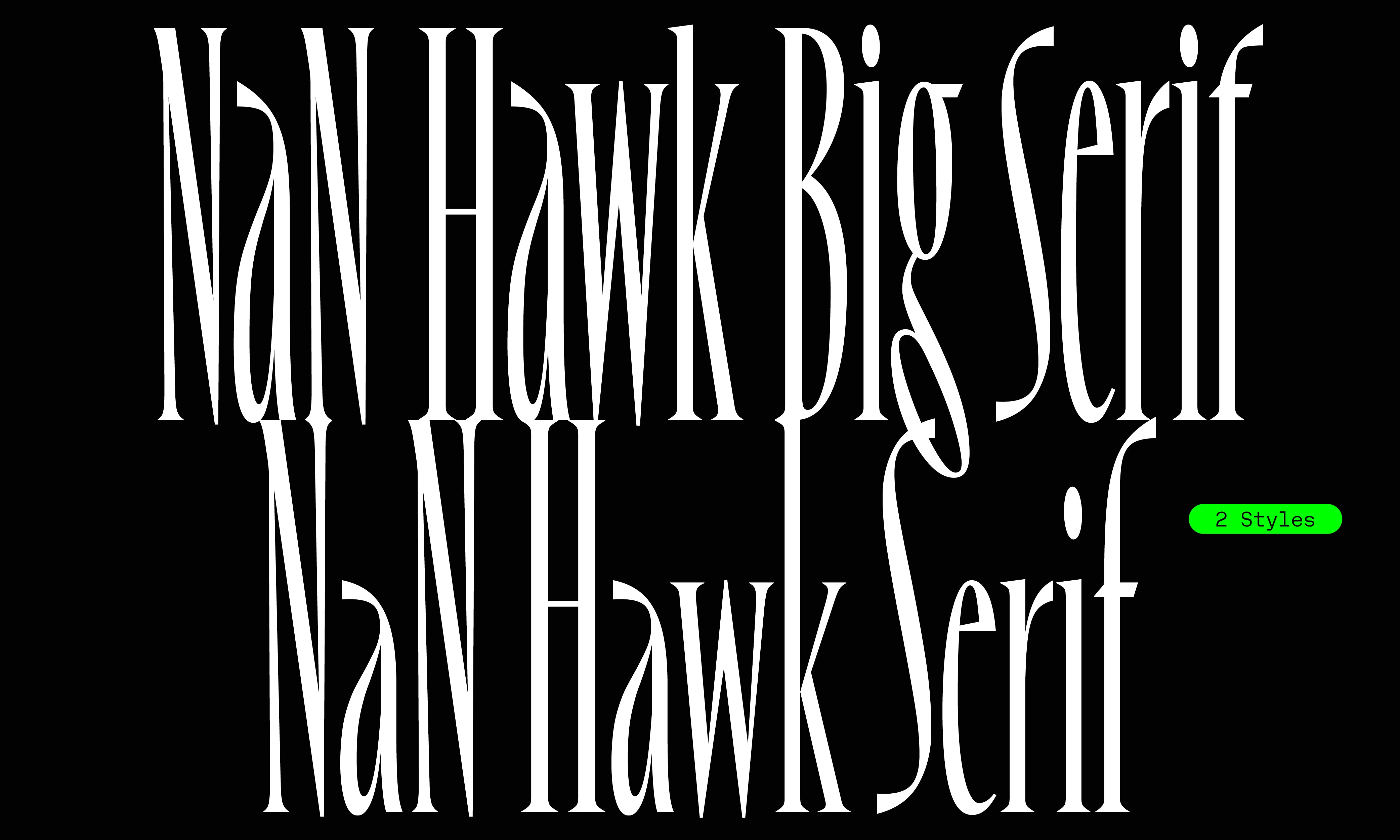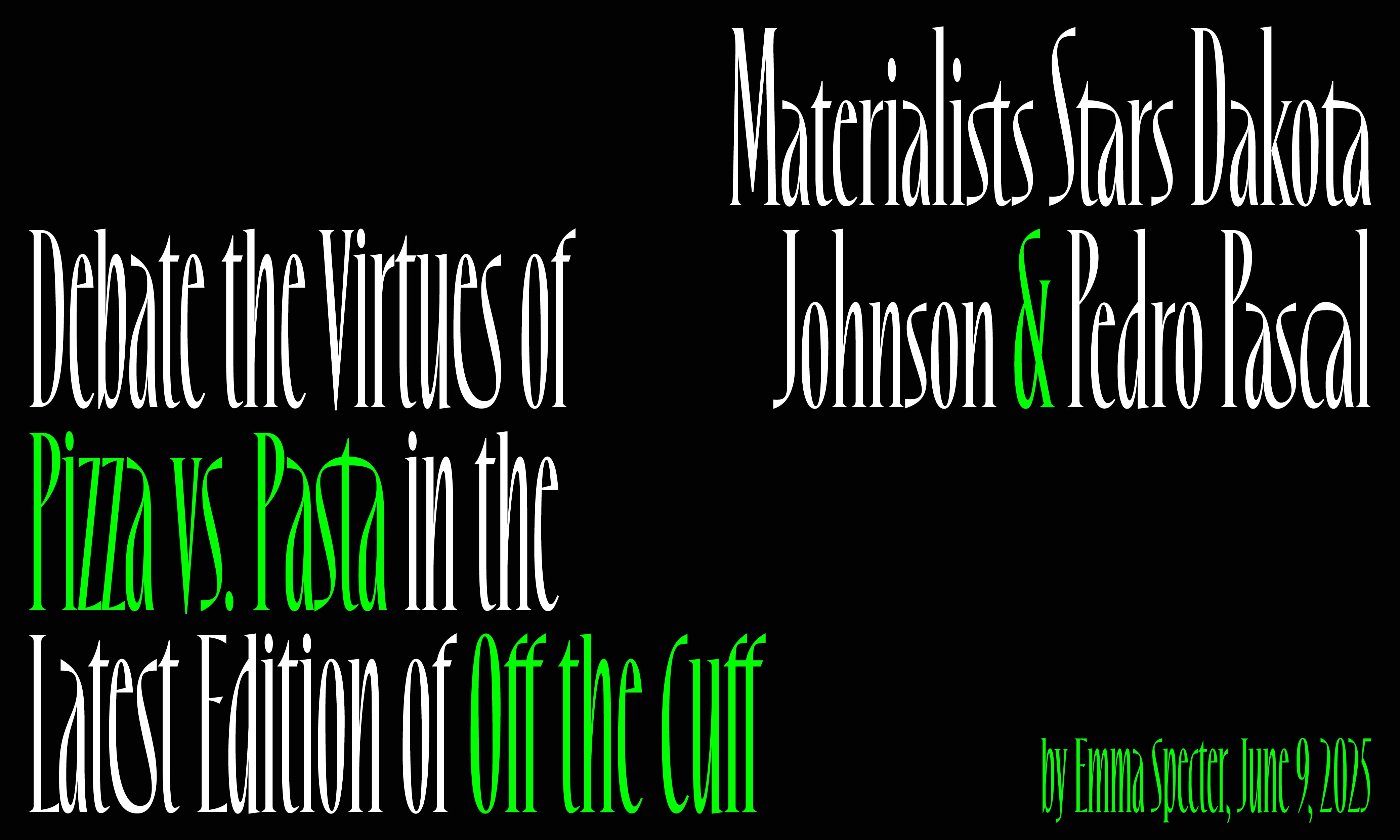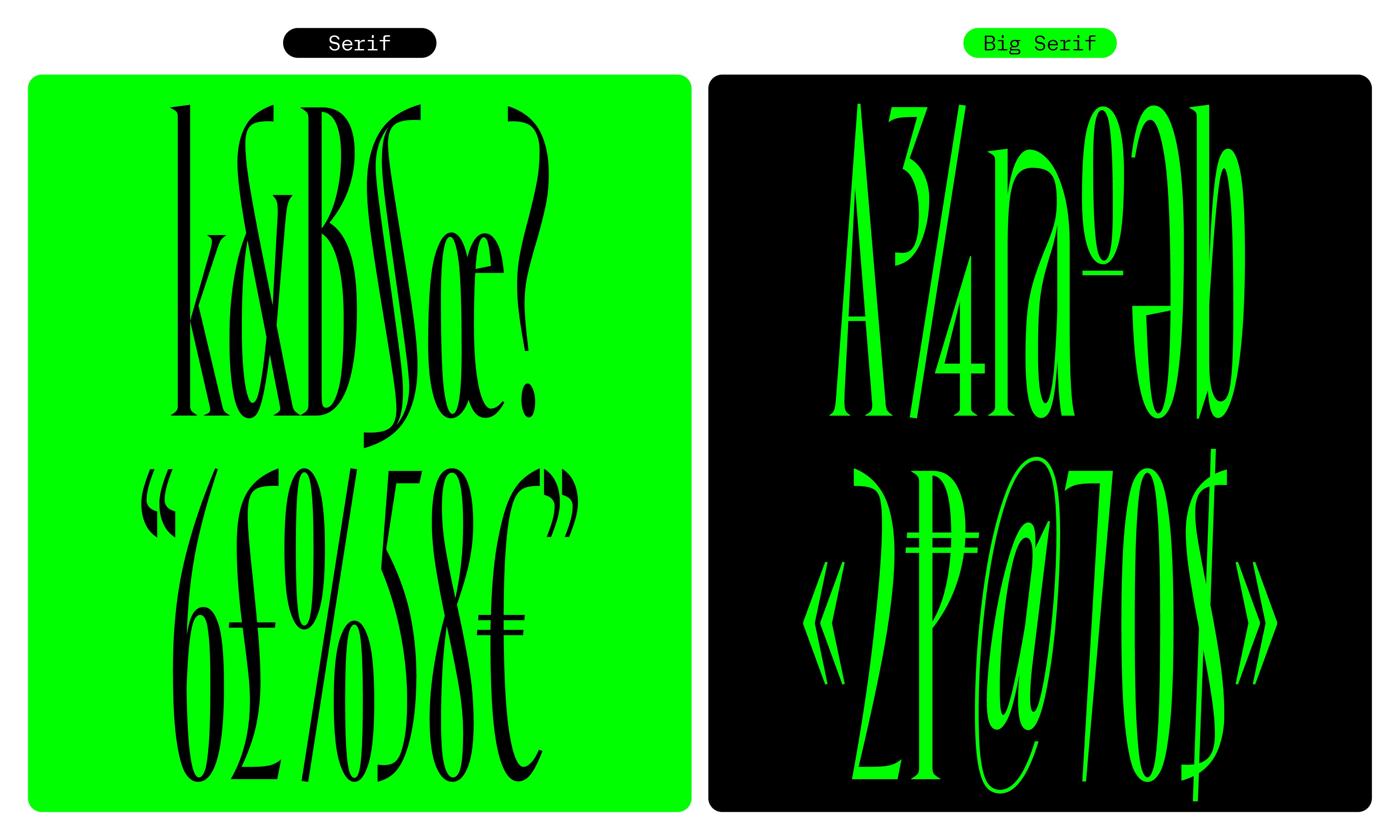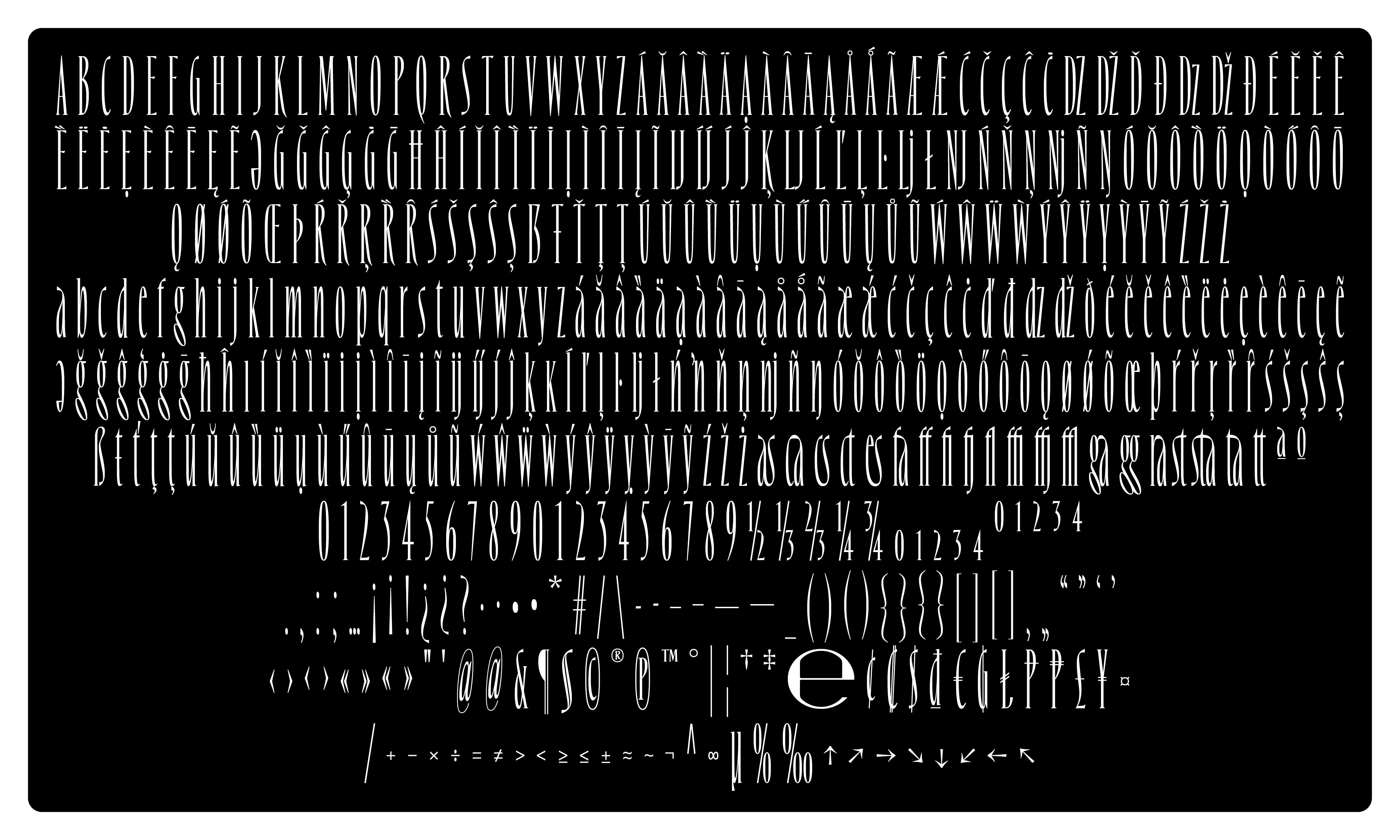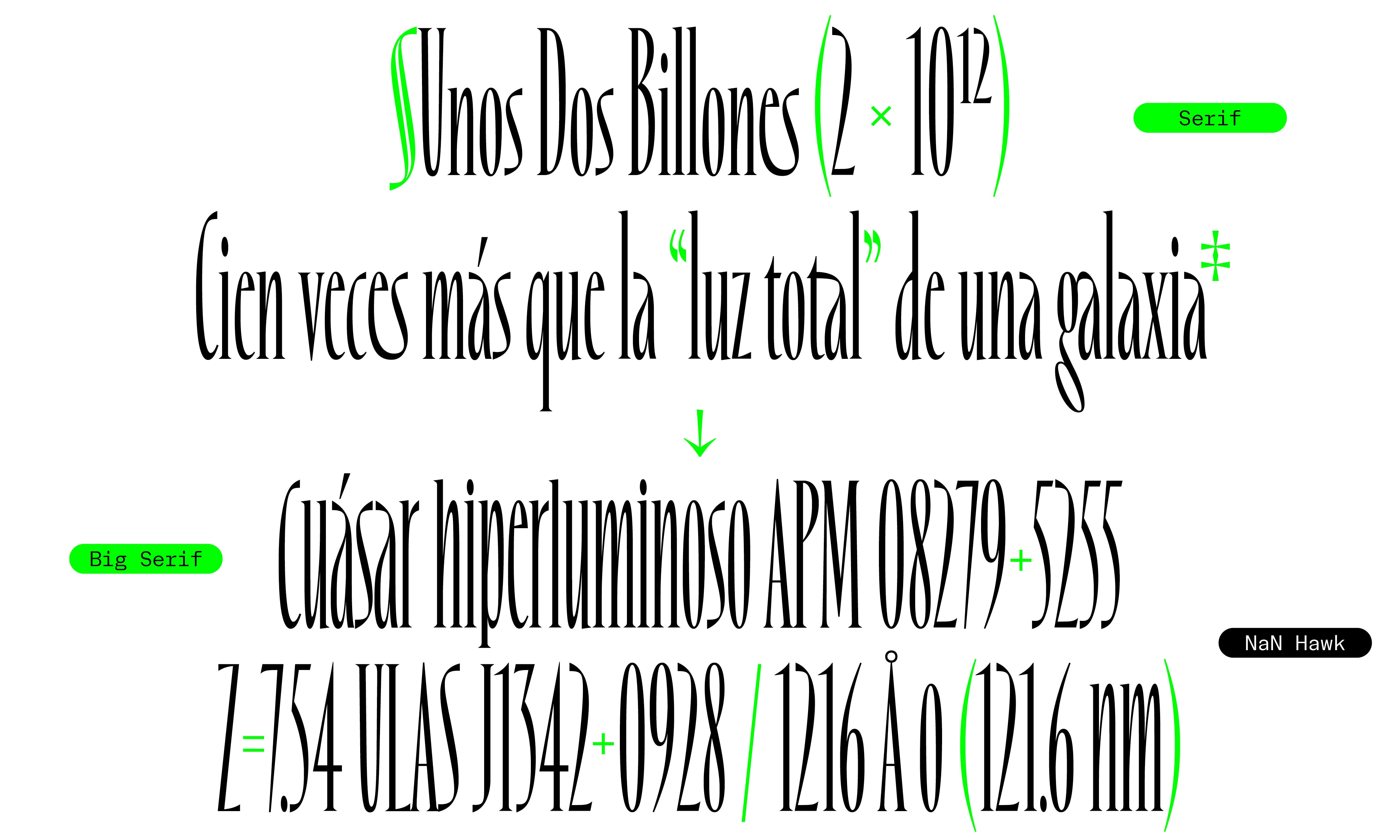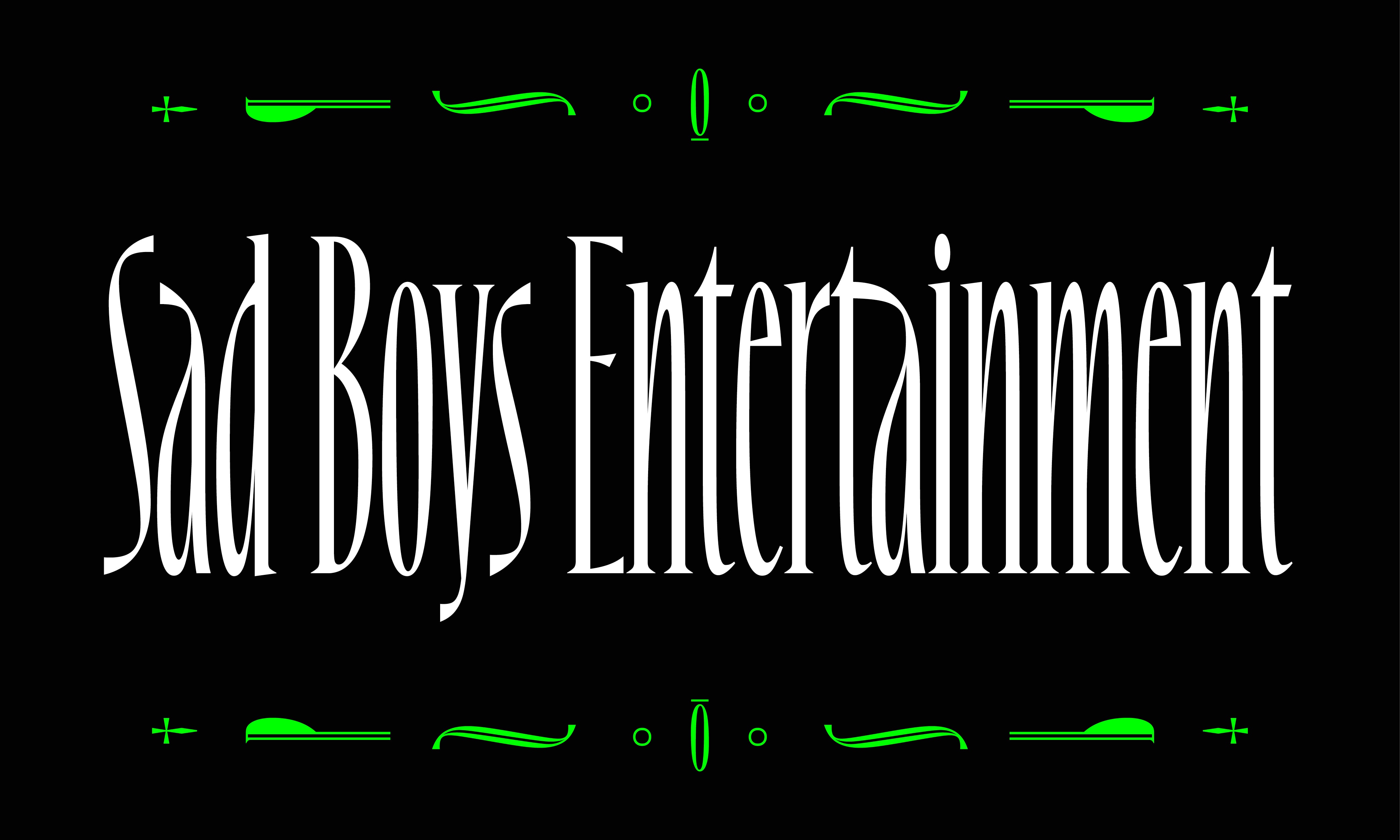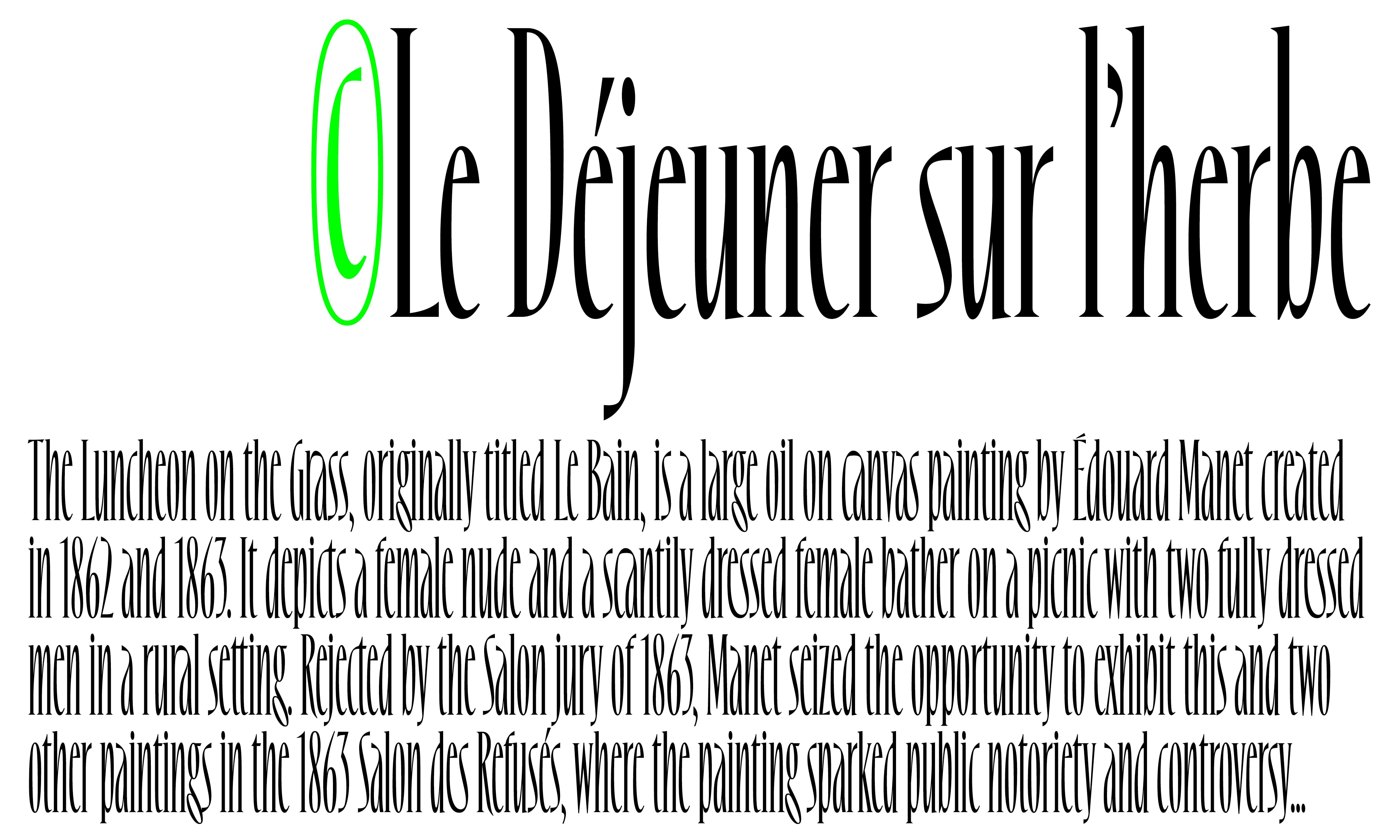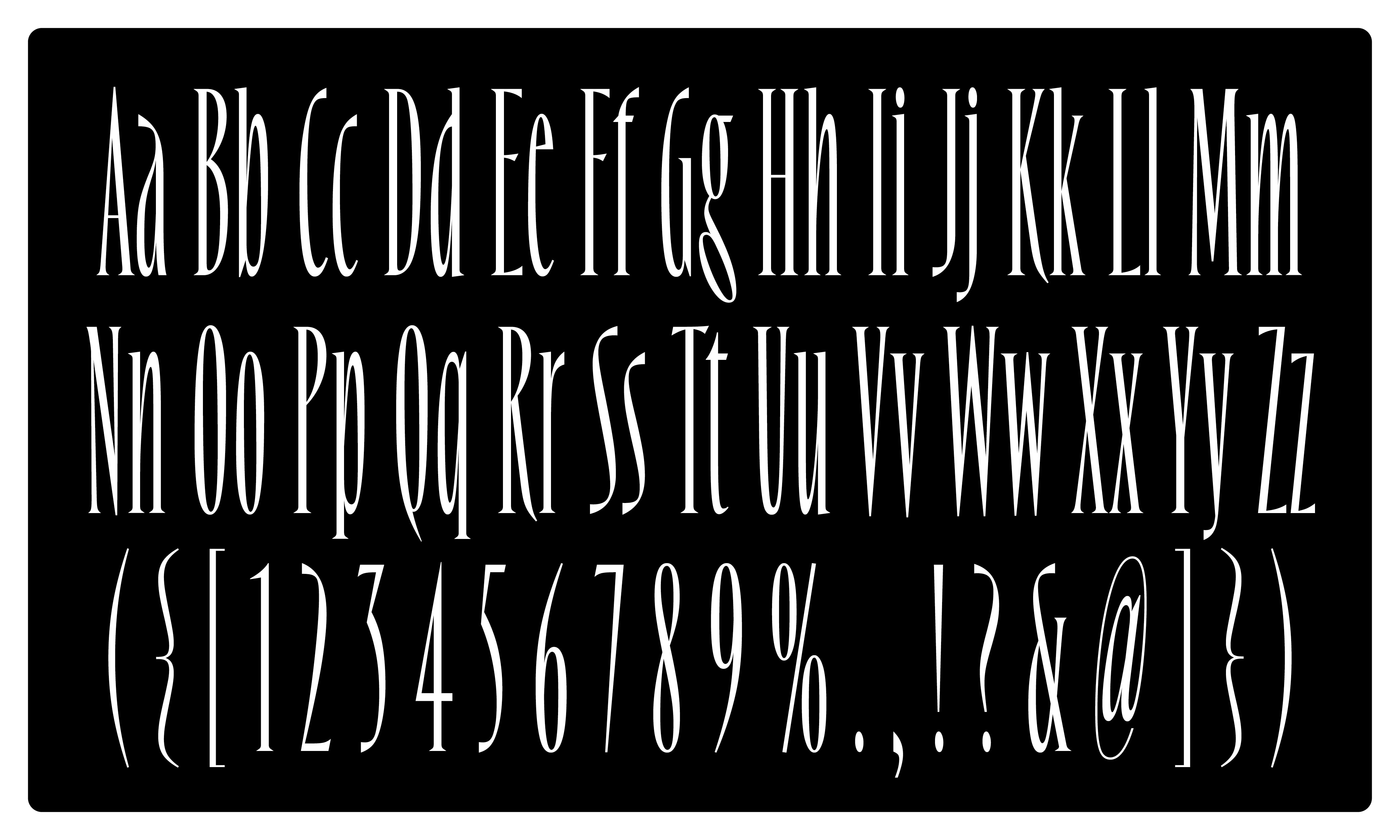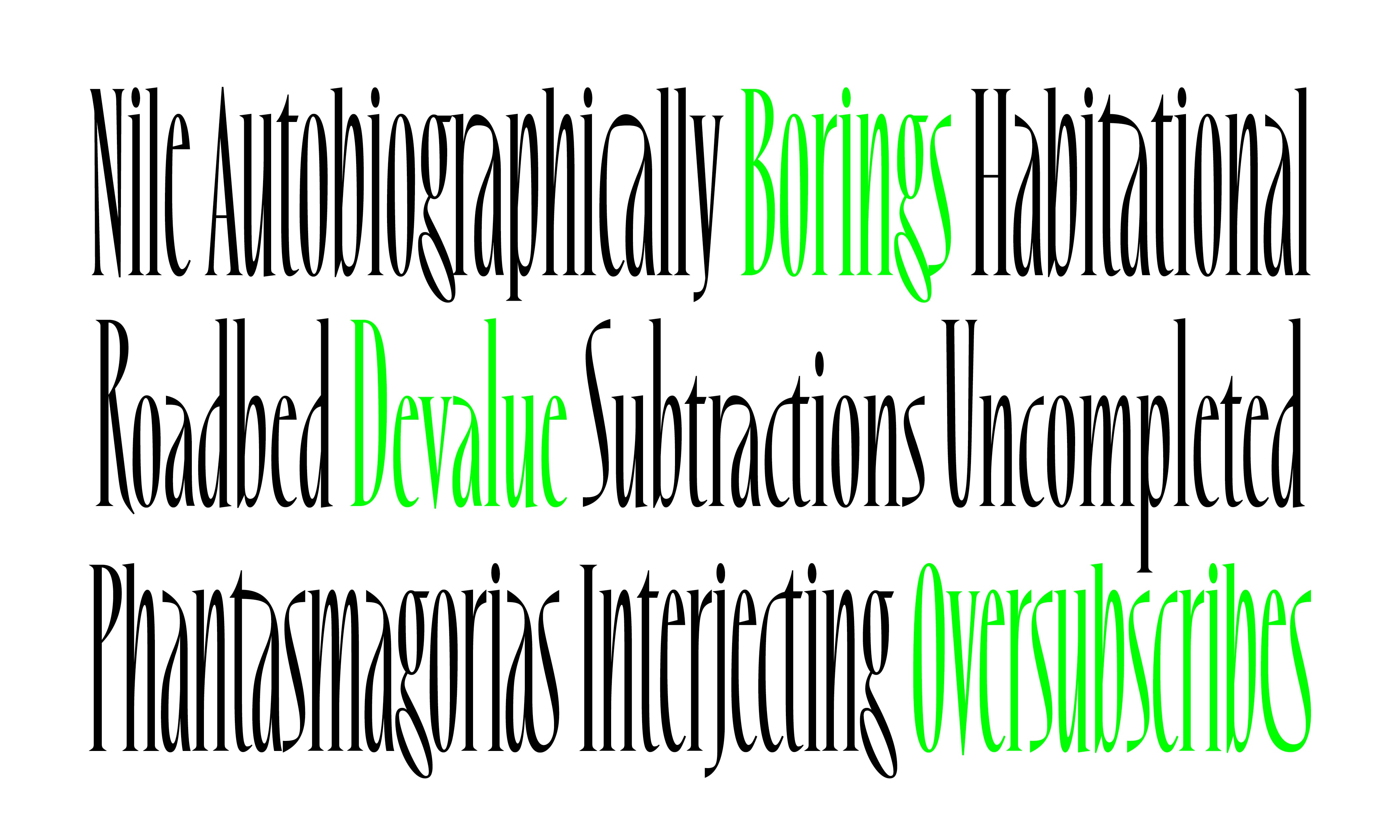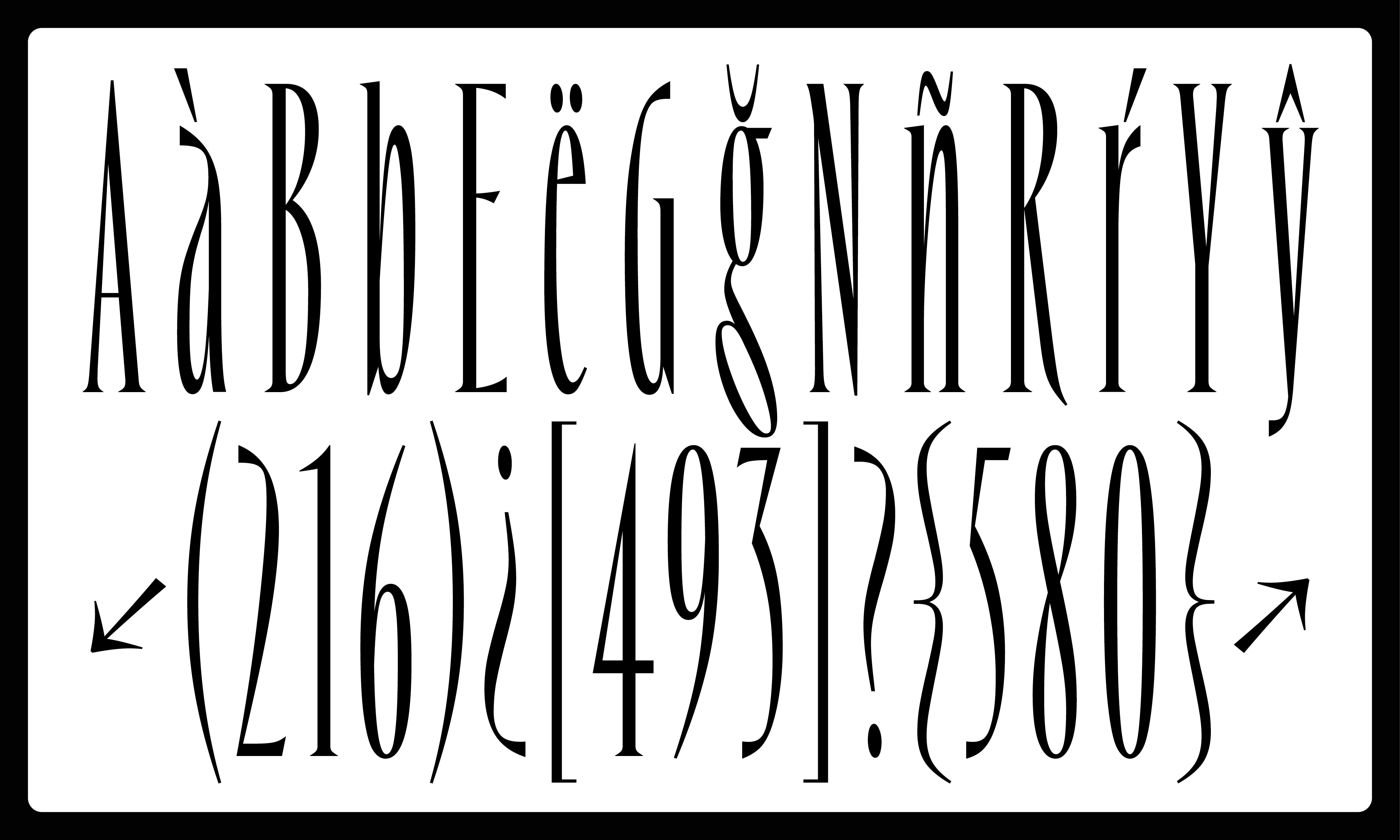
About NaN Hawk
NaN Hawk, extreme in most ways. Its contrast, x-height, audacity. Beware, sharp corners.
Typeface: NaN Hawk
Designed by NaN
NaN Team: Hugues Gentile, Fanny Hamelin, Fadhl Haqq, Léon Hugues, Jean-Baptiste Morizot, Luke Prowse
Additional Engineering: Igino Marini
Year: 2025-2026
Languages: Supporting 324 Latin-based languages
Selected Opentype Features
assistance Discretionary Ligatures
1/2 or 3/4 Tabular Numbers